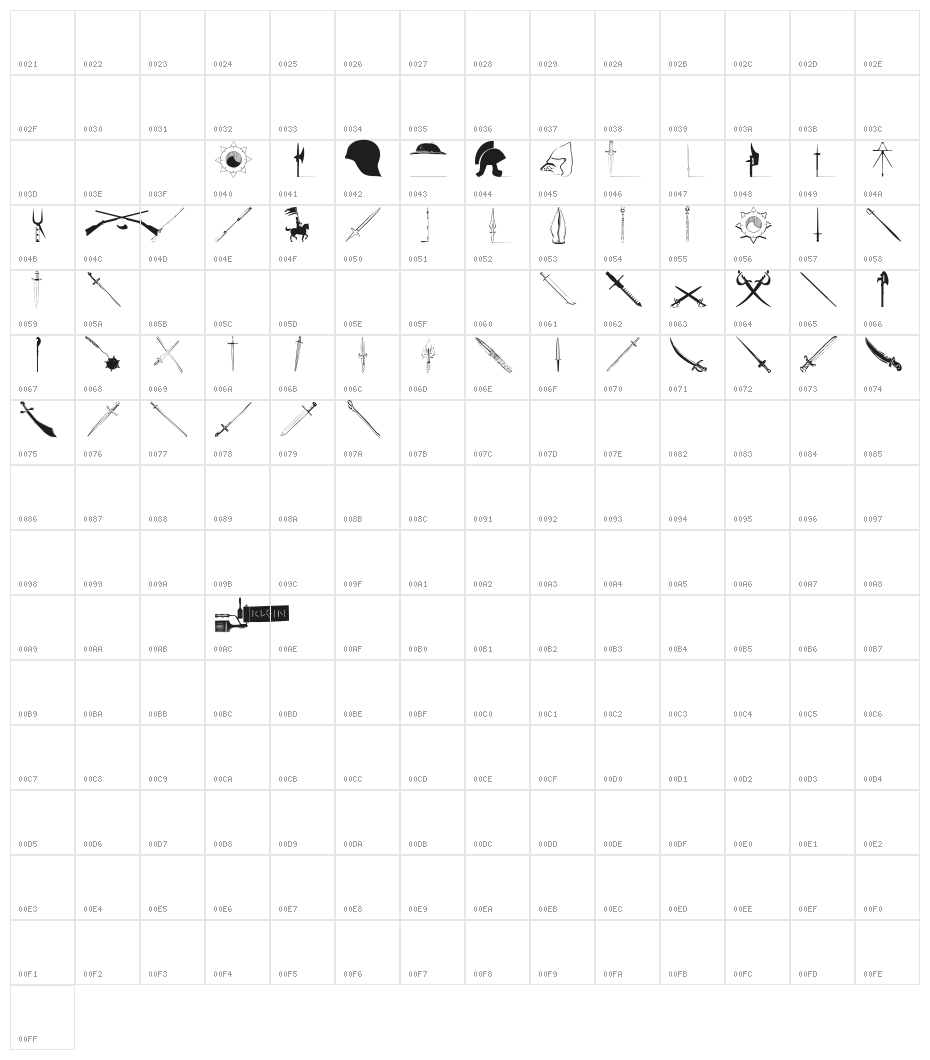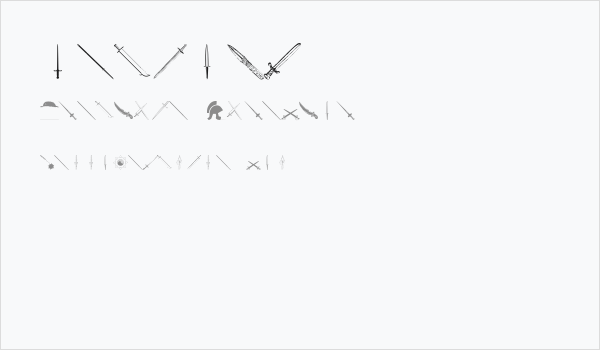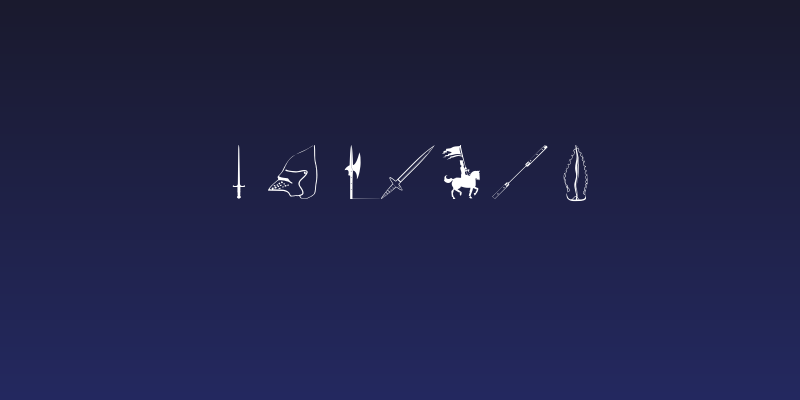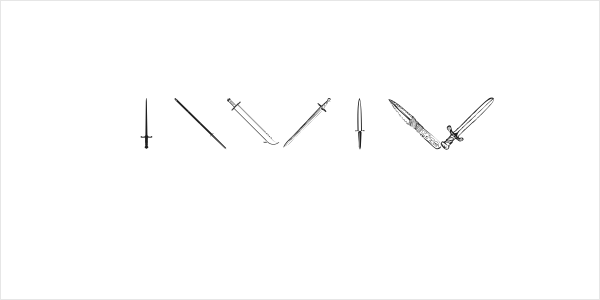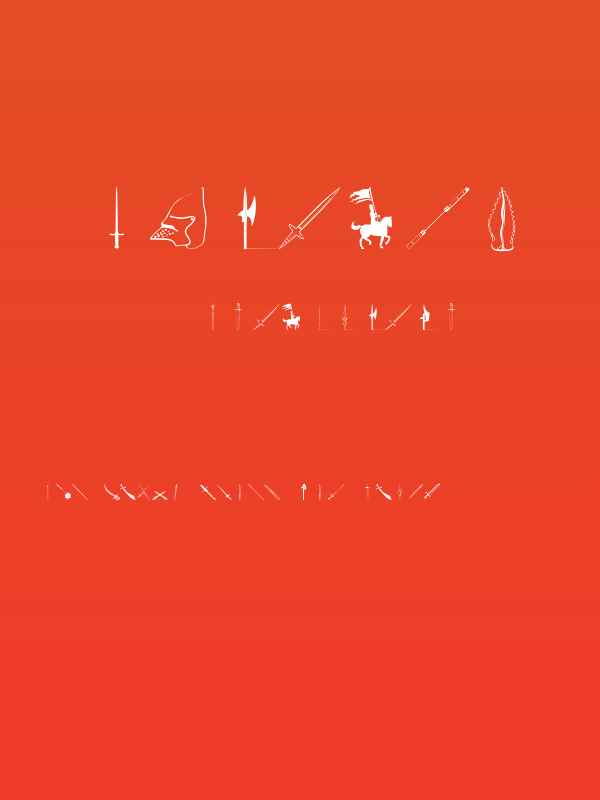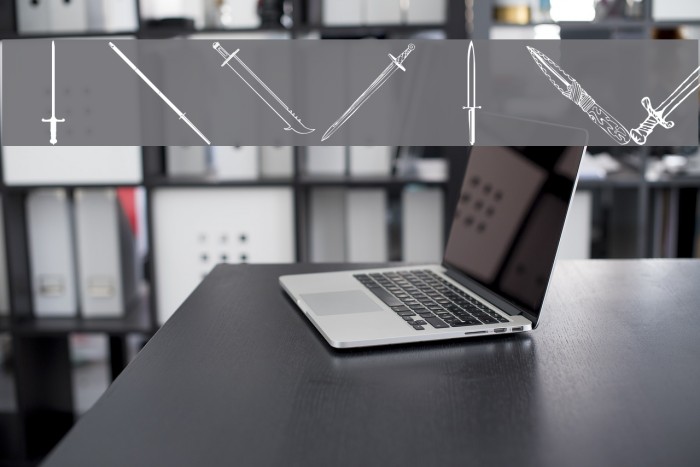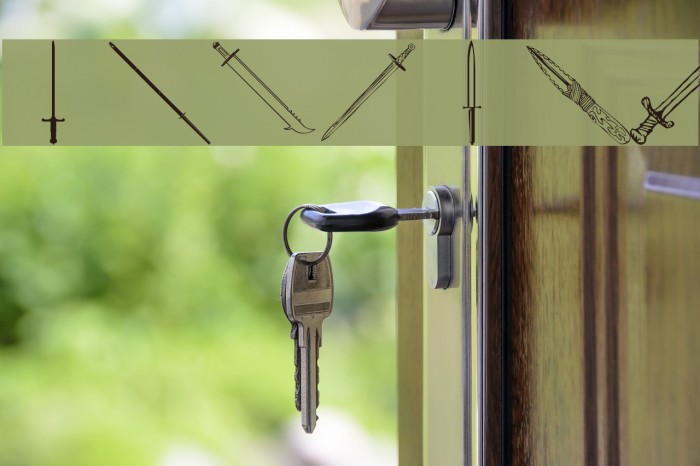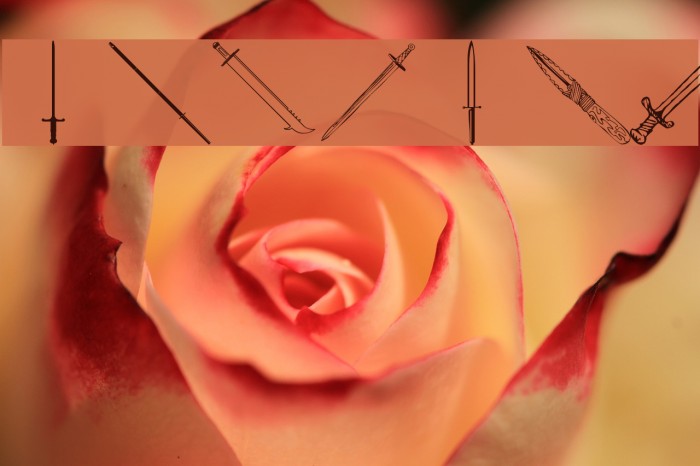
Weapons Font
Weapons Description
A decorative and illustrative typeface featuring weapon-themed glyphs, each character represented by a unique drawing of historical or fantasy weapons such as swords, axes, spears, and shields. The style is highly detailed and pictorial, focusing on visual storytelling rather than traditional letterforms.
| Overall Style | Decorative, Fantasy, Illustrative |
| Use Case | Logos, Headlines, Themed graphics, Posters |
| Proposed Projects | Game titles, fantasy book covers, posters, themed event invitations, collectible card games. |